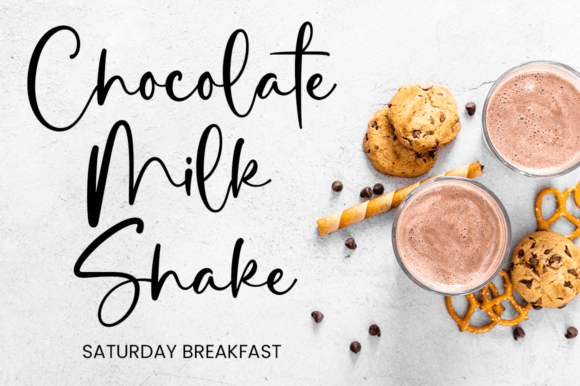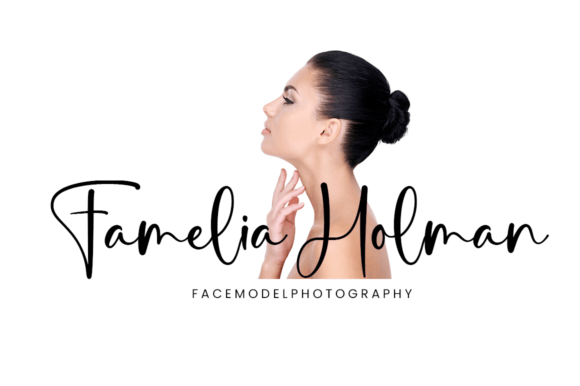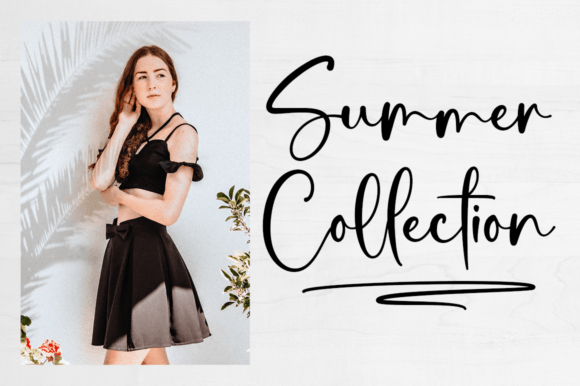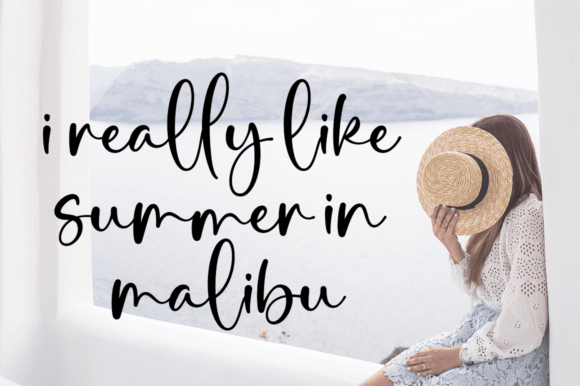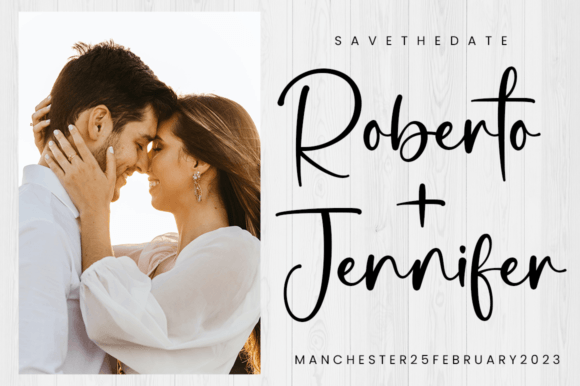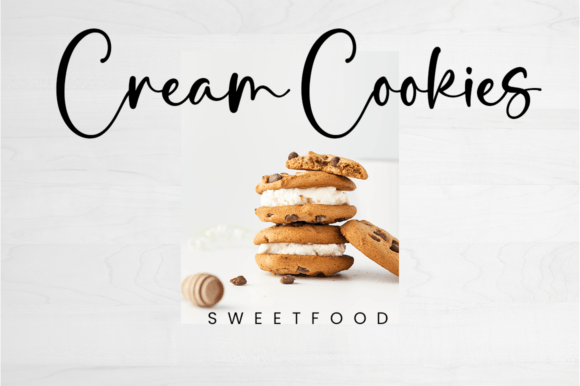
Better Time Font: Elevate Your Designs with Elegance and Class
In the world of typography, fonts play a crucial role in conveying the tone and aesthetic of a design. For designers and crafters seeking to add a touch of sophistication and refinement to their work, the Better Time font is an excellent choice. This lovely and delicate script font exudes elegance and class, making it perfect for projects that require a beautiful and refreshing look.
The Characteristics of Better Time Font
Better Time is a script font that boasts a range of characteristics that set it apart from other fonts. Its delicate and flowing lines create a sense of movement and fluidity, while its elegant and refined appearance makes it suitable for a variety of design applications. The font features:
- Delicate and flowing lines: Better Time’s lines are smooth and connected, creating a sense of continuity and harmony.
- Elegant and refined appearance: The font’s classic and sophisticated look makes it perfect for designs that require a touch of luxury and refinement.
- Beautiful and refreshing look: Better Time’s unique and stylish appearance ensures that your designs stand out from the crowd and leave a lasting impression.
Uses of Better Time Font
Better Time font is versatile and can be used in a variety of design applications, including:
- Wedding and event designs: The font’s elegant and refined appearance makes it perfect for wedding invitations, save-the-date cards, and other event-related designs.
- Branding and packaging: Better Time’s unique and stylish appearance makes it suitable for branding and packaging designs that require a touch of sophistication and refinement.
- Stationery and paper goods: The font’s delicate and flowing lines make it perfect for stationery and paper goods, such as notebooks, journals, and greeting cards.
- Digital designs: Better Time font can also be used in digital designs, such as website headers, social media graphics, and email newsletters.
Why Choose Better Time Font?
There are several reasons why designers and crafters should choose Better Time font for their projects:
- Unique and stylish appearance: Better Time font boasts a unique and stylish appearance that sets it apart from other fonts.
- Elegant and refined: The font’s elegant and refined appearance makes it perfect for designs that require a touch of sophistication and luxury.
- Versatile: Better Time font can be used in a variety of design applications, making it a versatile addition to any designer’s toolkit.
- Easy to read: Despite its delicate and flowing lines, Better Time font is easy to read, making it perfect for designs that require a clear and concise message.
Tips for Using Better Time Font
To get the most out of Better Time font, here are some tips to keep in mind:
- Use it sparingly: Better Time font is best used sparingly, as its delicate and flowing lines can be overwhelming if used excessively.
- Pair it with other fonts: Better Time font can be paired with other fonts to create a unique and stylish contrast.
- Experiment with different sizes: The font’s delicate and flowing lines can be showcased in different sizes, from large headers to smaller body text.
| Font Name | Better Time Font |
| Author | RasdiType |
In conclusion, Better Time font is a lovely and delicate script font that exudes elegance and class. Its unique and stylish appearance makes it perfect for designs that require a beautiful and refreshing look. With its versatile uses, elegant characteristics, and ease of use, Better Time font is an excellent addition to any designer’s toolkit. Whether you’re a designer, crafter, or simply someone looking to add a touch of sophistication to your projects, Better Time font is sure to impress.